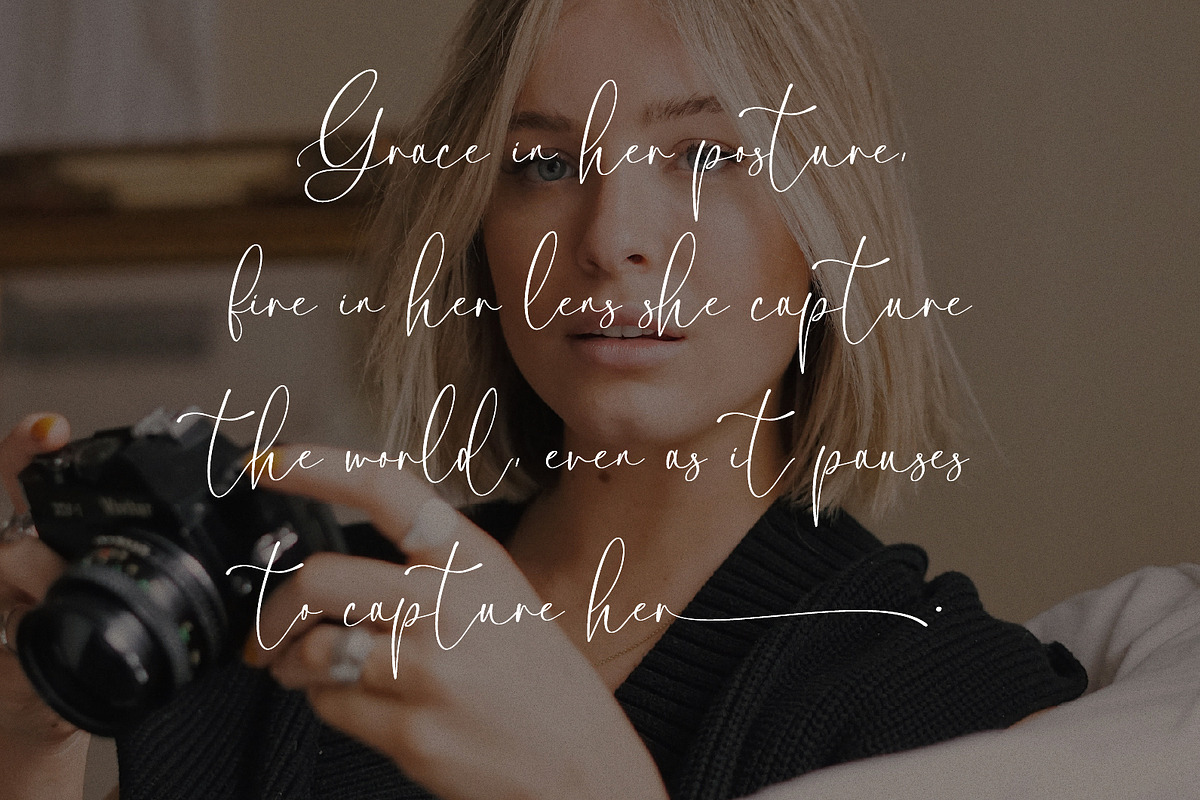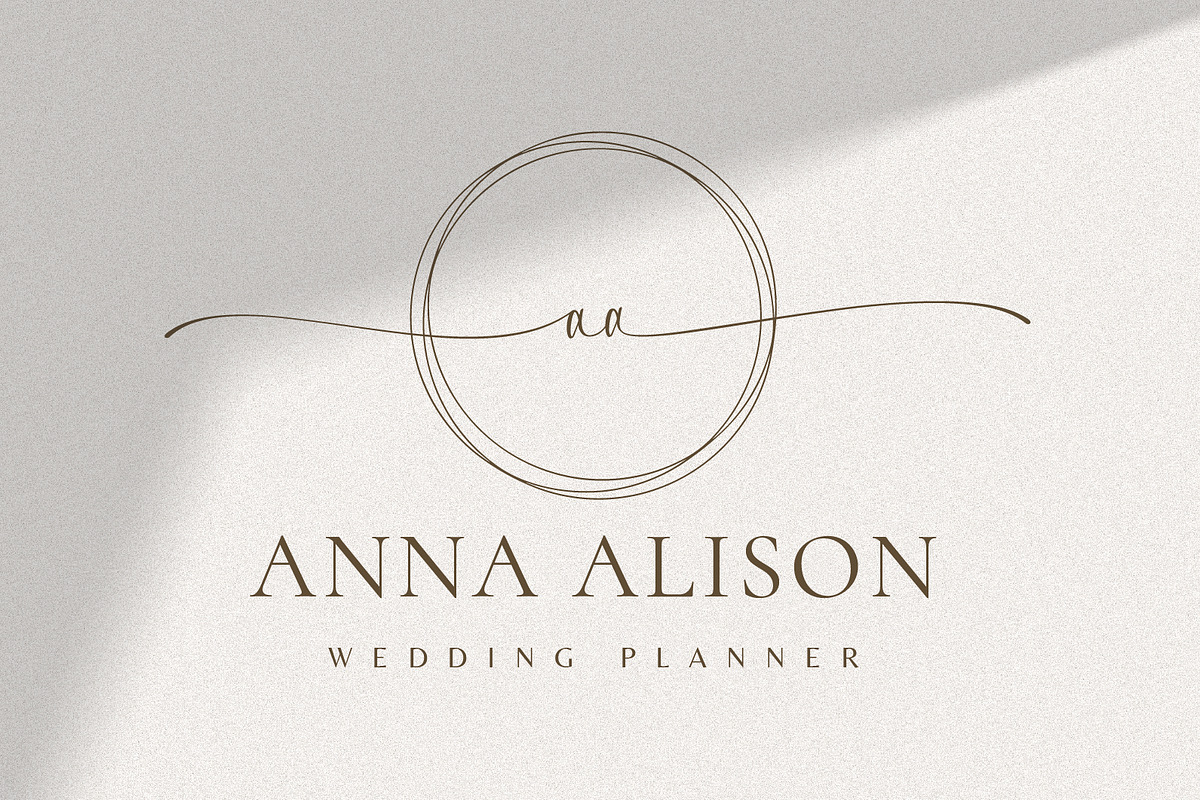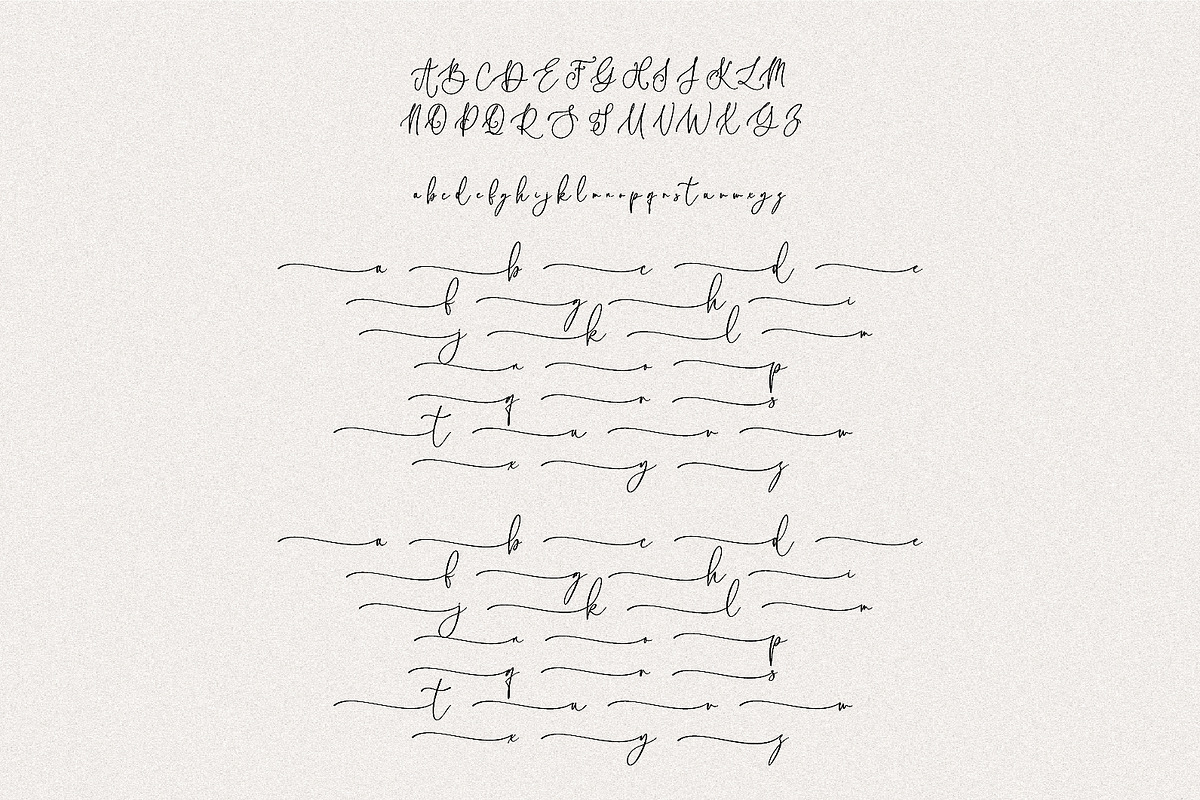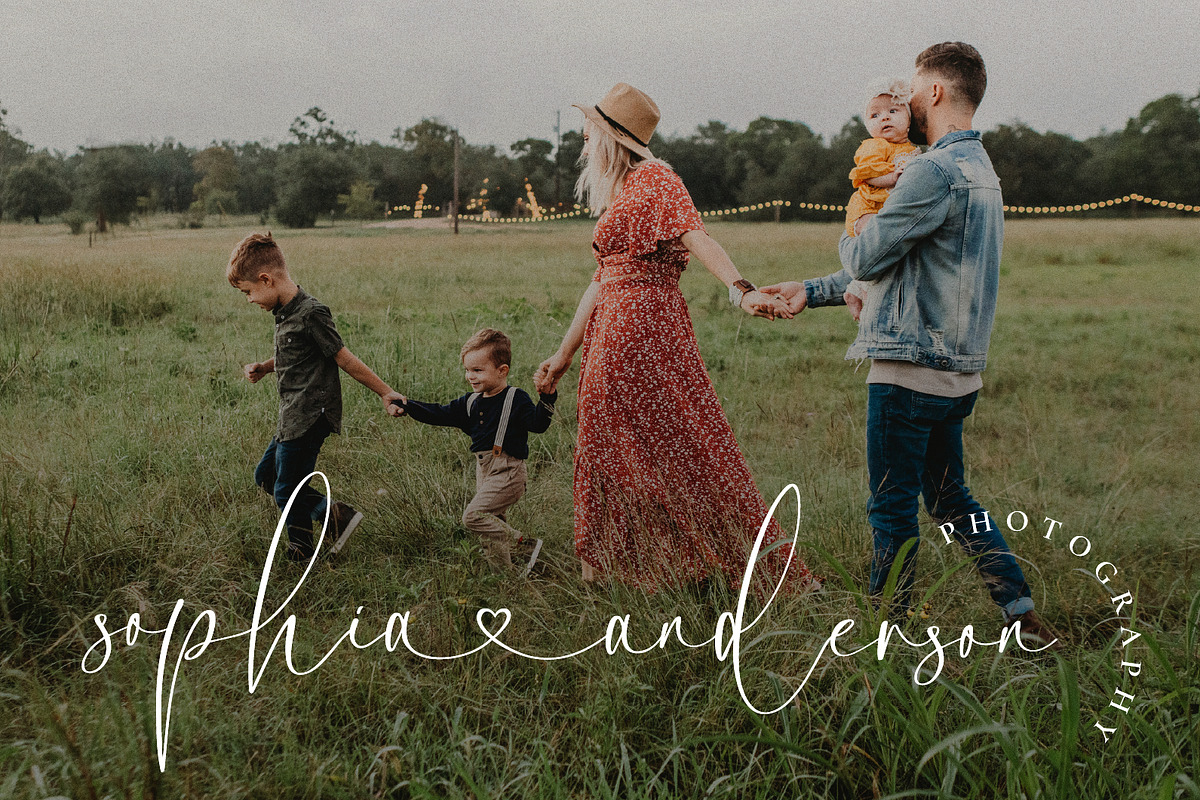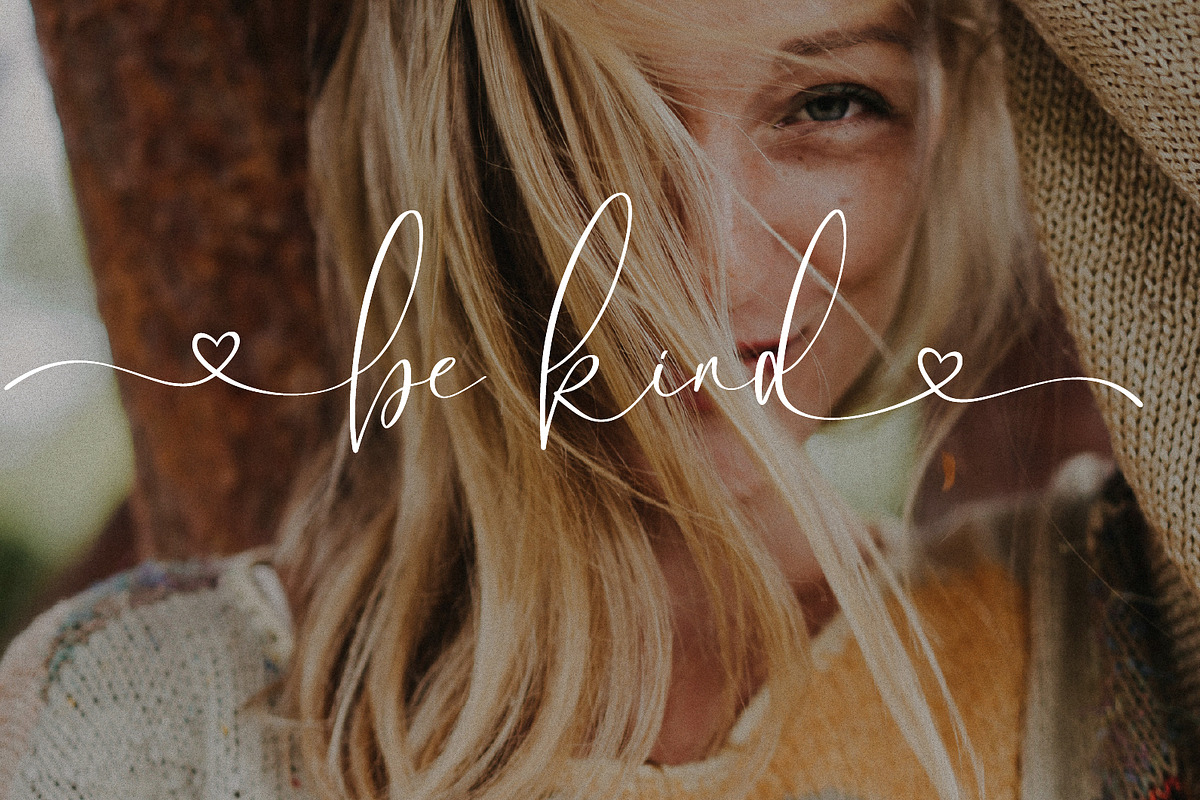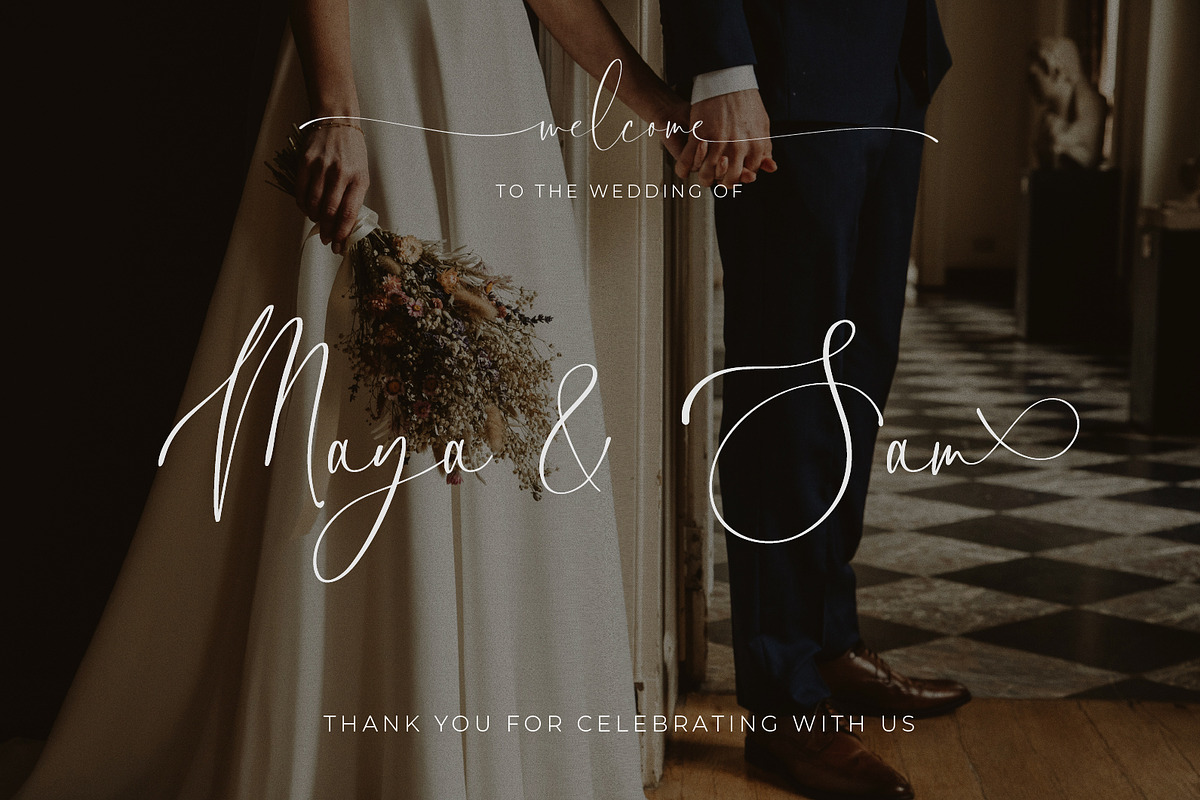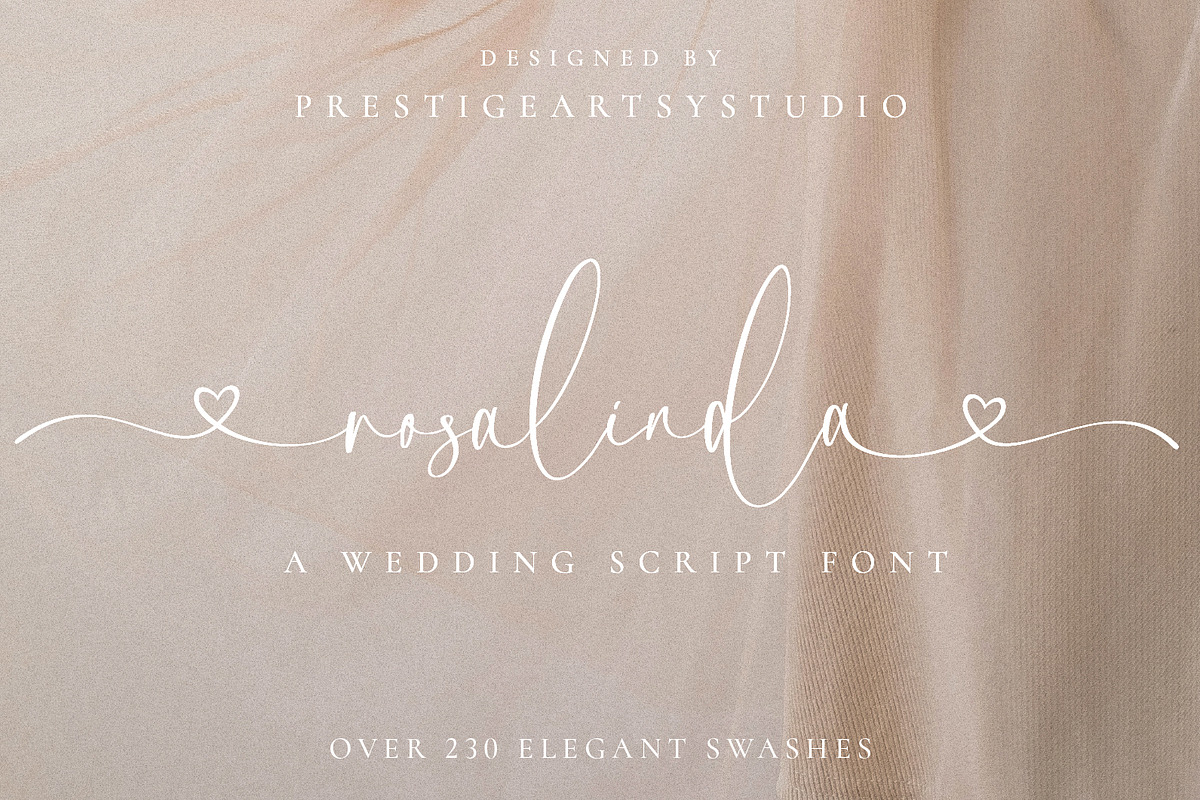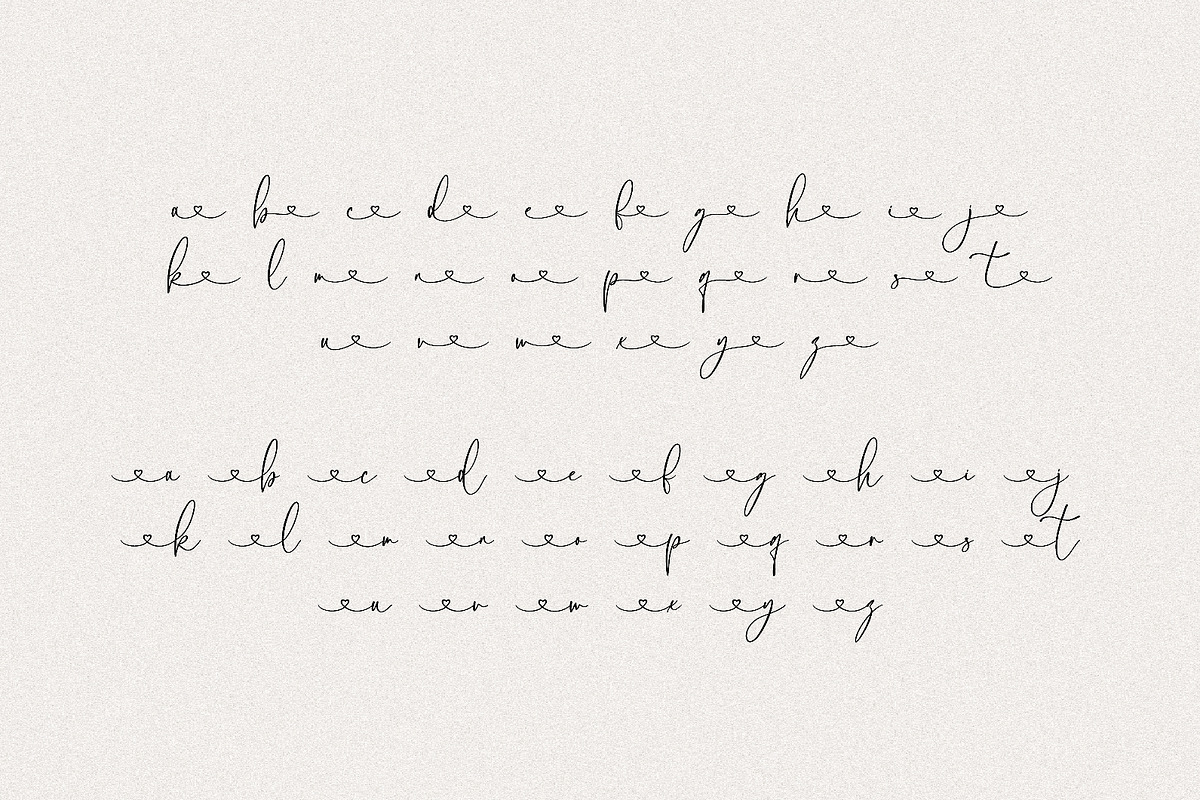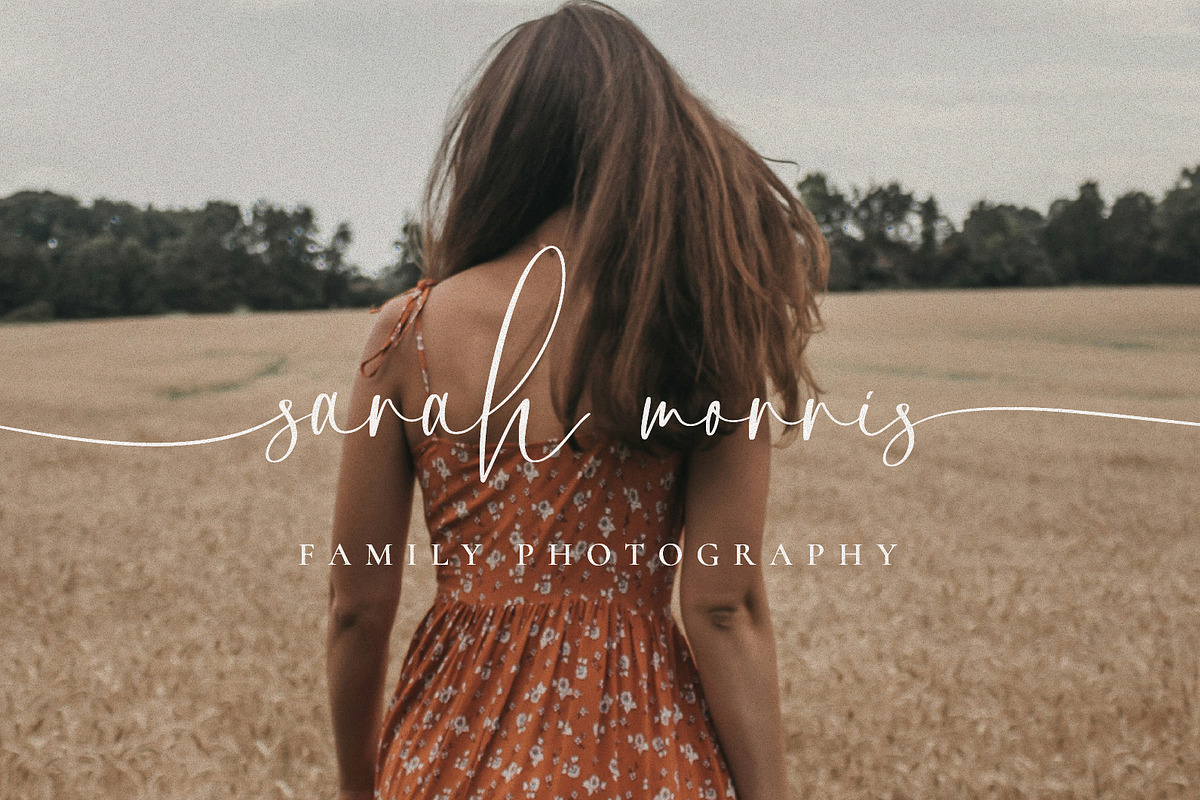
Rosalinda A Wedding Script Font
Rosalinda Script is a romantic calligraphy font created for elegant wedding stationery, feminine branding, and timeless keepsakes. With over 180 handcrafted swashes, this cursive script font brings a luxurious handwritten feel to save-the-dates, bridal signage, logos, and more.
230+ Swashes (initial, terminal, and flourished alternates)
✨ Perfect For:
Wedding Invitations & Save the Dates
Elegant Logos & Feminine Branding
Bride & Groom Name Designs
Destination Venue Signage (e.g. Santorini, Lake Como)
Instagram Quotes, Menus & Thank You Cards
✨ Font Features:
Naturally connected cursive lowercase
Swashes and alternates organized into stylistic sets (ss01–ss06)
✨ Create wedding designs that feel custom, couture, and unforgettable — Rosalinda Script is your perfect match.